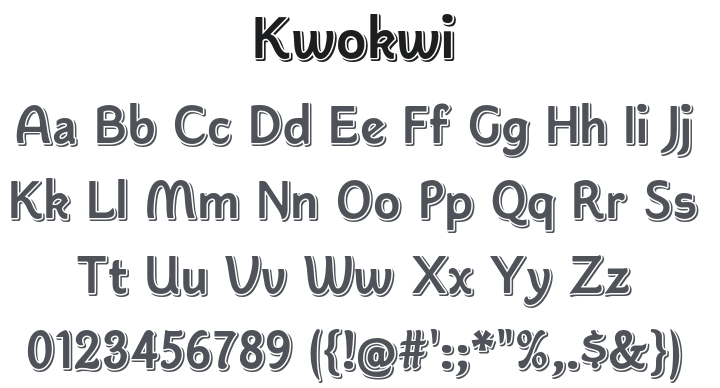
Kwokwi Font Family
About Kwokwi
Kwokwi is a bold drop-shadow pub typeface loosely based on the letterforms of Mikadan — chunky, rounded characters with a built-in shadow that gives them a thick, dimensional, sign-painted quality. Its jovial, hearty personality feels right at home on a tavern sign or vintage poster. Perfect for pub branding, retro food and drink packaging, festival signage, and any design needing a bold, good-natured, old-school character.